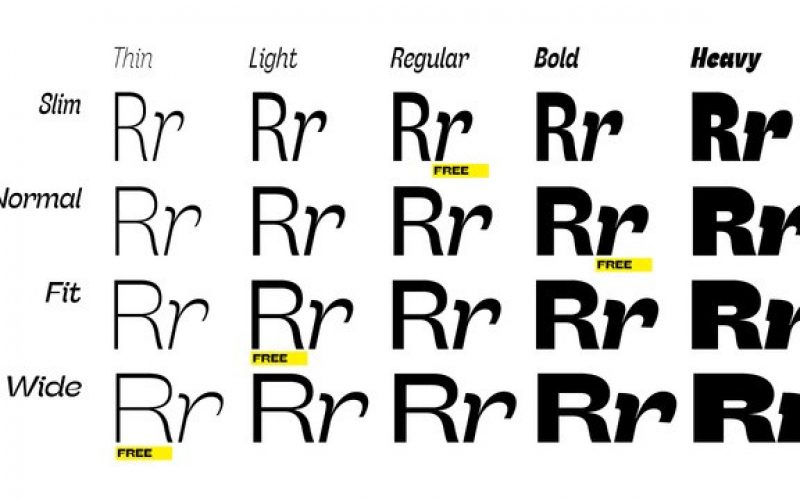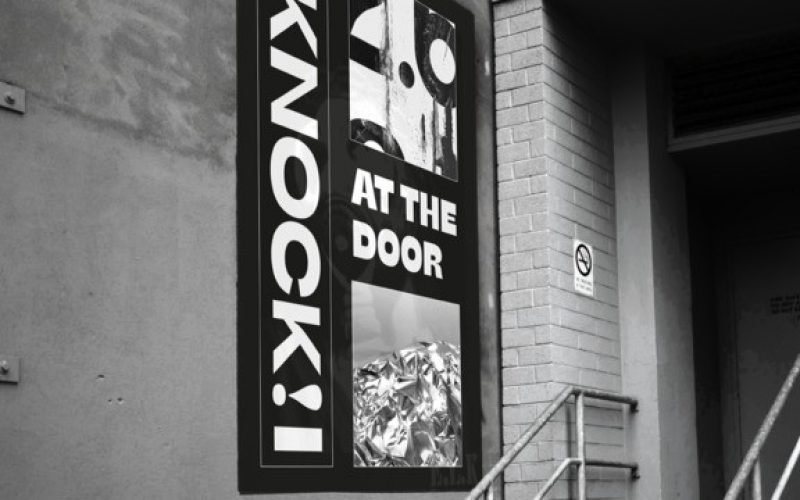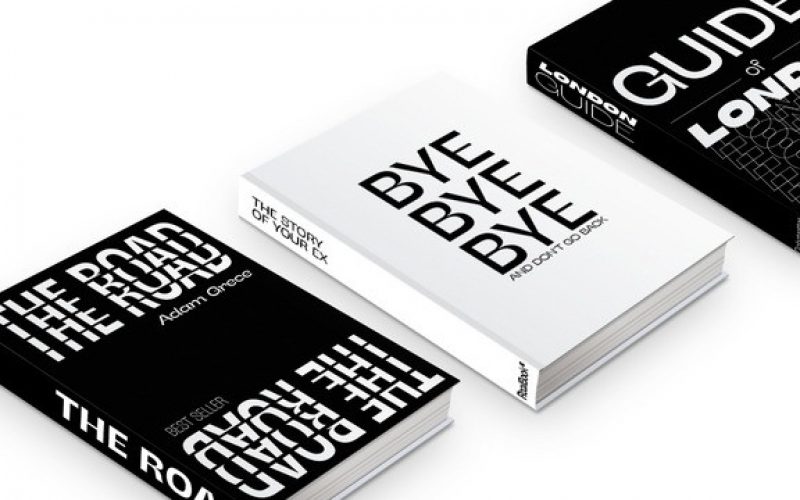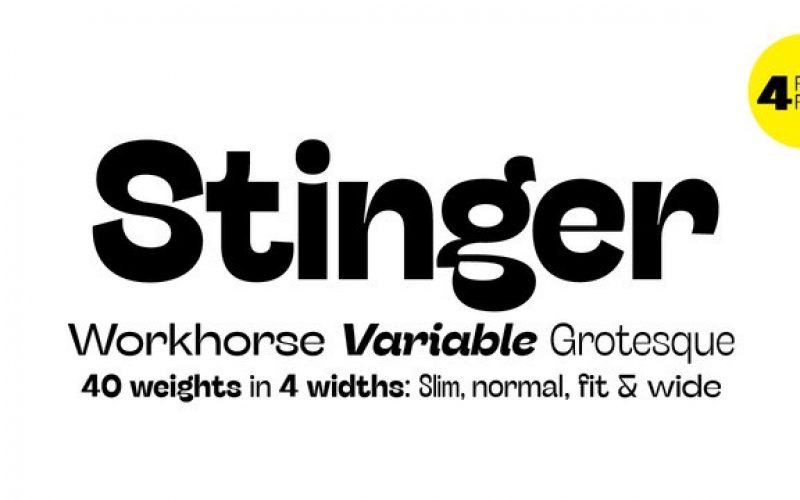
Stinger Sans Serif Font
Since their first appearance as Italians on the pages of the 1821 William Caslon type specimens, reverse contrast typefaces have been typography’s best loved quirky outcasts. Subverting the traditional relationship between thick verticals and thin horizontals made them perfect for eye-catching advertisements. The unexpected contrasts and the thick slabs produced by reverse-contrast serifs became ubiquitous in period posters, and synonymous with wild west and circus iconography.